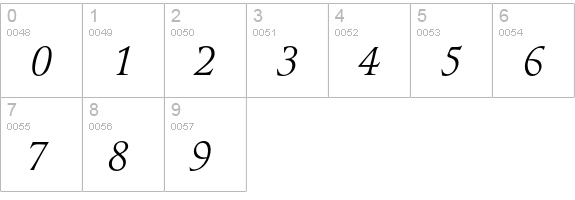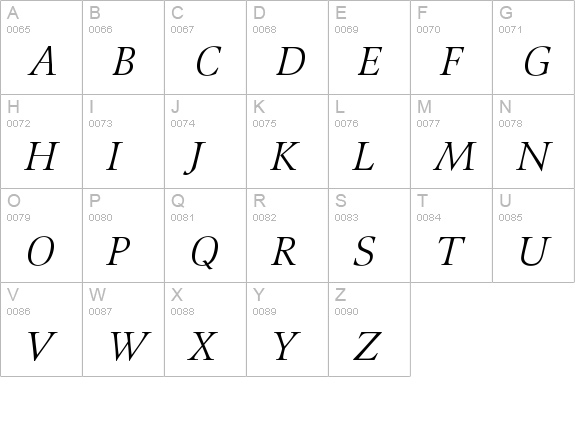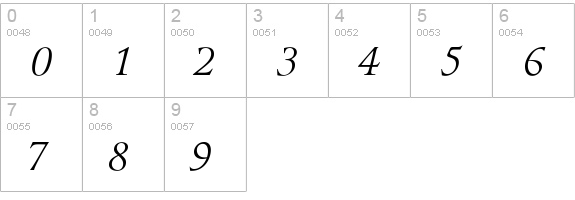
Guardi 56 Italic is a distinctive, italic variant in the Guardi typeface family \xE2\x80\x94 well suited to design and typography projects.
Guardi 56 Italic font is a stylish and elegant typeface that exudes sophistication and charm. With its sleek and modern design, this font is perfect for adding a touch of class to any project. The italic style of Guardi 56 brings a sense of flair and individuality to your text, making it stand out from the crowd. What's even better is that Guardi 56 Italic font is completely free to download at FontsMarket.com. This means you can elevate your designs without any cost, making it a great choice for both personal and commercial use. Whether you're working on a branding project, creating invitations, or designing a website, Guardi 56 Italic font is sure to make a lasting impression. Download it today and let your creativity soar with this stunning typeface.